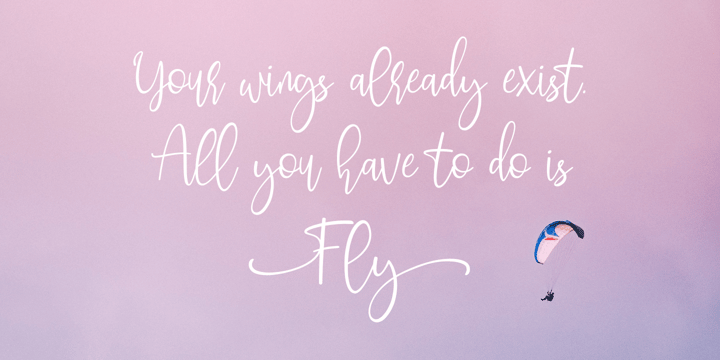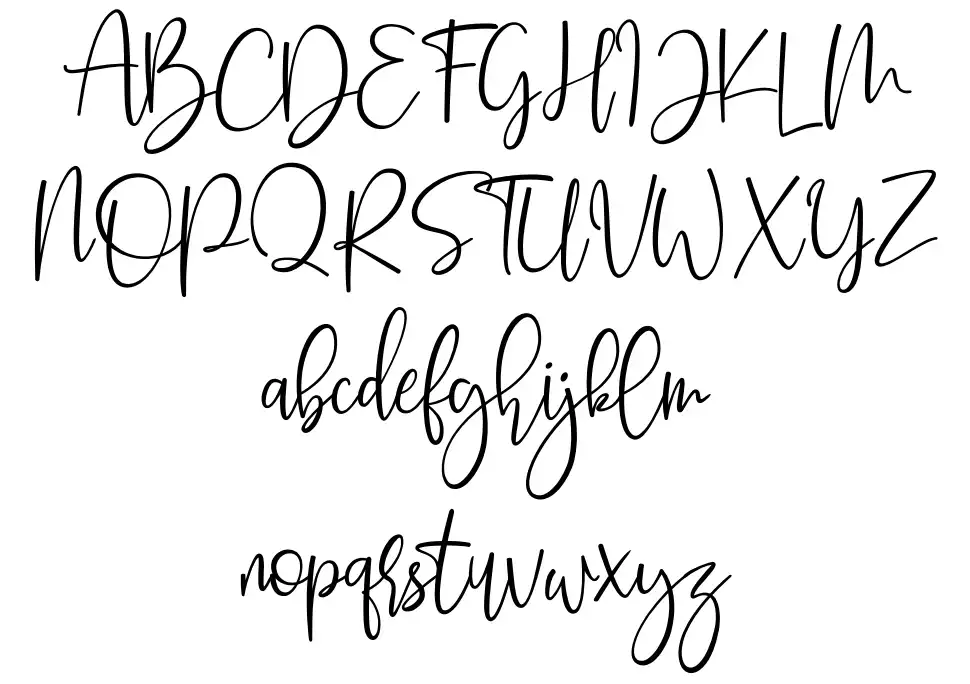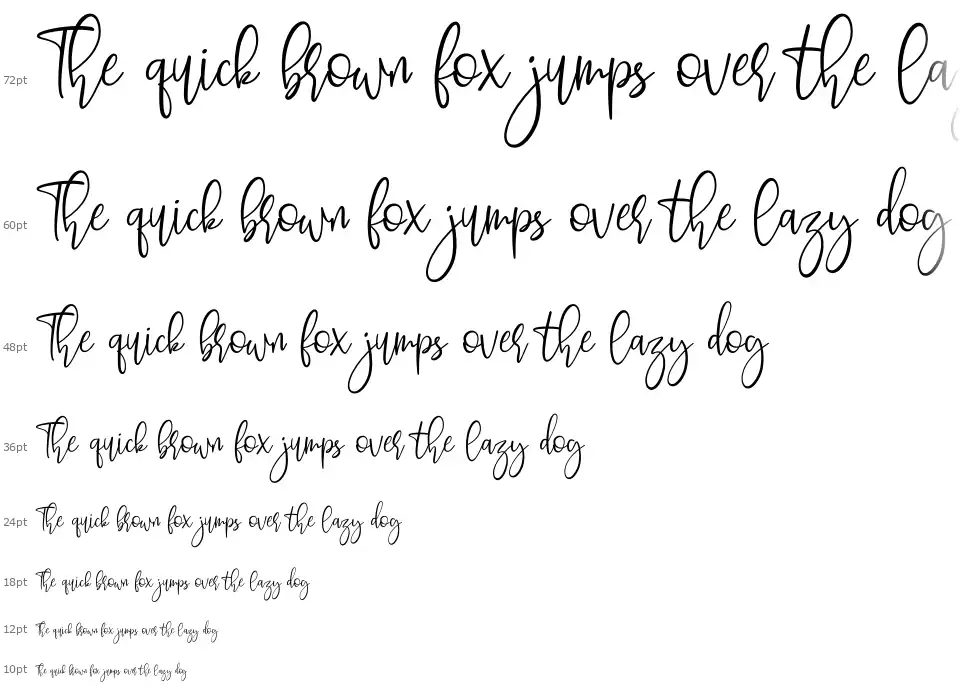
Butter Jelly Font . With exaggerated strokes and an bouncy baseline, butter jelly is full of hearts and love. Butter jelly is a modern calligraphy font with handwritten, sophisticated flows. Click now to create a custom image with your own words. Perfect for logos, wedding stationery,. Butter jelly is a script type font that can be used on any device such as pc, mac, linux,. Thank for downloading butter jelly. Download butter jelly font, a modern calligraphy typeface with handwritten, sophisticated flows. With exaggerated strokes and an bouncy baseline, butter jelly has an unmistakable charm; It is full of hearts and glyphs. Butter jelly is a font. Butter jelly is a modern calligraphy font with handwritten, sophisticated flows. The typeface contains 1 file and supports 41 languages. Butter jelly font download is available free from fontget. It is full of hearts and glyphs. By installing or using this font, you are agree to the product usage agreement:
With exaggerated strokes and an bouncy baseline, butter jelly has an unmistakable charm; Perfect for logos, wedding stationery,. Download butter jelly font, a modern calligraphy typeface with handwritten, sophisticated flows. By installing or using this font, you are agree to the product usage agreement: Click now to create a custom image with your own words. Butter jelly is a modern calligraphy font with handwritten, sophisticated flows. Butter jelly is a modern calligraphy font with handwritten, sophisticated flows. It is full of hearts and glyphs. Butter jelly is a script type font that can be used on any device such as pc, mac, linux,. Butter jelly is a font.
Butter Jelly Font Butter jelly is a font. By installing or using this font, you are agree to the product usage agreement: With exaggerated strokes and an bouncy baseline, butter jelly is full of hearts and love. Butter jelly is a modern calligraphy font with handwritten, sophisticated flows. Click now to create a custom image with your own words. It is full of hearts and glyphs. Thank for downloading butter jelly. Perfect for logos, wedding stationery,. The typeface contains 1 file and supports 41 languages. Butter jelly is a font. Butter jelly font download is available free from fontget. With exaggerated strokes and an bouncy baseline, butter jelly has an unmistakable charm; With exaggerated strokes and an bouncy baseline, butter jelly. With exaggerated strokes and a bouncy baseline, butter jelly is. Butter jelly is a modern calligraphy font with handwritten, sophisticated flows. Download butter jelly font, a modern calligraphy typeface with handwritten, sophisticated flows.
Butter Jelly font Font Tr Butter Jelly Font Butter jelly is a modern calligraphy font with handwritten, sophisticated flows. With exaggerated strokes and an bouncy baseline, butter jelly. It is full of hearts and glyphs. Perfect for logos, wedding stationery,. With exaggerated strokes and an bouncy baseline, butter jelly has an unmistakable charm; The typeface contains 1 file and supports 41 languages. Thank for downloading butter jelly. Download. Butter Jelly Font.
Butter Jelly Font font & Desktop MyFonts Butter Jelly Font It is full of hearts and glyphs. Click now to create a custom image with your own words. By installing or using this font, you are agree to the product usage agreement: Thank for downloading butter jelly. With exaggerated strokes and a bouncy baseline, butter jelly is. Butter jelly is a font. With exaggerated strokes and an bouncy baseline, butter. Butter Jelly Font.
Pink Jelly Font by Fox7 · Creative Fabrica Butter Jelly Font Butter jelly font download is available free from fontget. It is full of hearts and glyphs. Butter jelly is a script type font that can be used on any device such as pc, mac, linux,. With exaggerated strokes and an bouncy baseline, butter jelly is full of hearts and love. Butter jelly is a modern calligraphy font with handwritten, sophisticated. Butter Jelly Font.
Butter Jelly font by Hamzah Muhamad Ihsan FontRiver Butter Jelly Font Thank for downloading butter jelly. With exaggerated strokes and an bouncy baseline, butter jelly is full of hearts and love. It is full of hearts and glyphs. Perfect for logos, wedding stationery,. The typeface contains 1 file and supports 41 languages. With exaggerated strokes and an bouncy baseline, butter jelly has an unmistakable. Butter Jelly Font.
Sweet Jelly Font by GoodMoodType · Creative Fabrica Butter Jelly Font With exaggerated strokes and an bouncy baseline, butter jelly has an unmistakable charm; By installing or using this font, you are agree to the product usage agreement: Butter jelly is a modern calligraphy font with handwritten, sophisticated flows. Butter jelly is a script type font that can be used on any device such as pc, mac, linux,. Butter jelly is. Butter Jelly Font.
Butter Jelly Script Font Free Download Creativetacos Butter Jelly Font Thank for downloading butter jelly. Perfect for logos, wedding stationery,. With exaggerated strokes and an bouncy baseline, butter jelly. With exaggerated strokes and a bouncy baseline, butter jelly is. Free download of butter jelly font. It is full of hearts and glyphs. By installing or using this font, you are agree to the product usage agreement: With exaggerated strokes and. Butter Jelly Font.
Butter Jelly Script Font › Fontesk Butter Jelly Font With exaggerated strokes and an bouncy baseline, butter jelly has an unmistakable charm; Click now to create a custom image with your own words. With exaggerated strokes and an bouncy baseline, butter jelly. By installing or using this font, you are agree to the product usage agreement: Thank for downloading butter jelly. Butter jelly font download is available free from. Butter Jelly Font.
Download Butter Jelly font Butter Jelly Font With exaggerated strokes and an bouncy baseline, butter jelly has an unmistakable charm; Butter jelly is a script type font that can be used on any device such as pc, mac, linux,. Click now to create a custom image with your own words. Download butter jelly font, a modern calligraphy typeface with handwritten, sophisticated flows. Butter jelly is a font.. Butter Jelly Font.
Peanut Butter Jelly Font Download Butter Jelly Font Butter jelly is a modern calligraphy font with handwritten, sophisticated flows. Free download of butter jelly font. Butter jelly is a font. The typeface contains 1 file and supports 41 languages. Download butter jelly font, a modern calligraphy typeface with handwritten, sophisticated flows. With exaggerated strokes and a bouncy baseline, butter jelly is. Butter jelly is a modern calligraphy font. Butter Jelly Font.